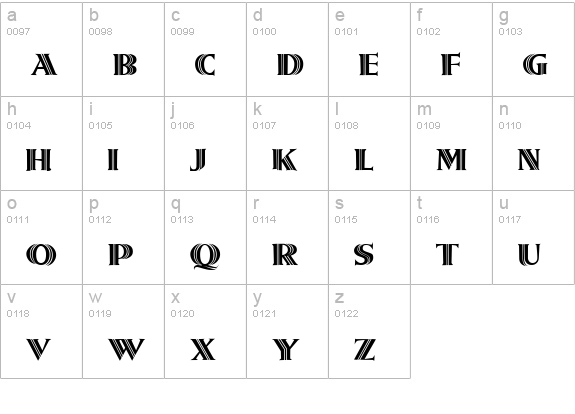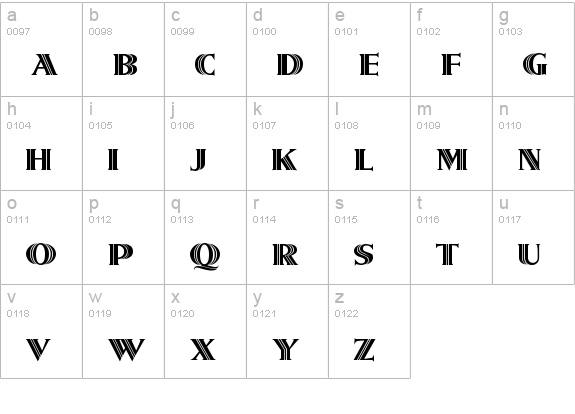
Iguanodon Font Details
Introducing Iguanodon font, a unique and versatile typeface that captures the essence of creativity and modern design. With its clean lines and elegant curves, Iguanodon is perfect for a wide range of projects, from branding to editorial design. This stylish font exudes sophistication and charm, making it a great choice for any design that requires a touch of class. What's even better is that Iguanodon font is completely free to download at FontsMarket.com. Yes, you heard that right – this stunning typeface is available at no cost, allowing you to elevate your designs without breaking the bank. So why wait? Download Iguanodon font today and add a touch of elegance to your next project.